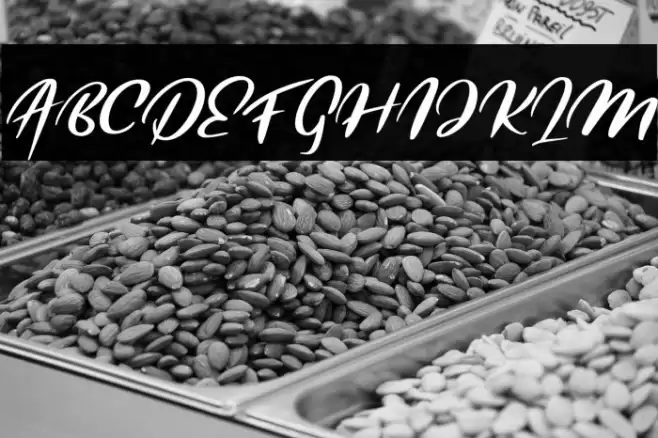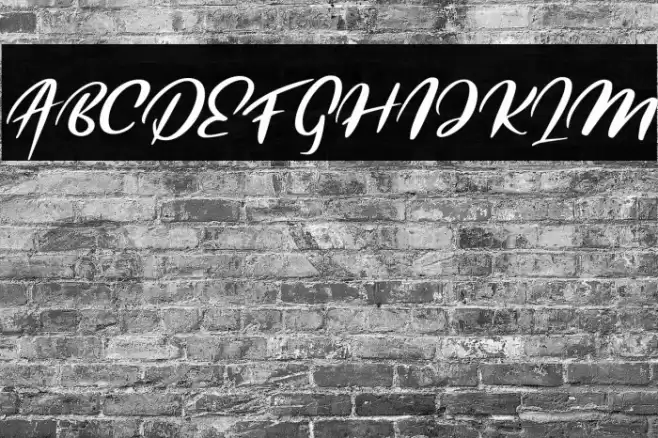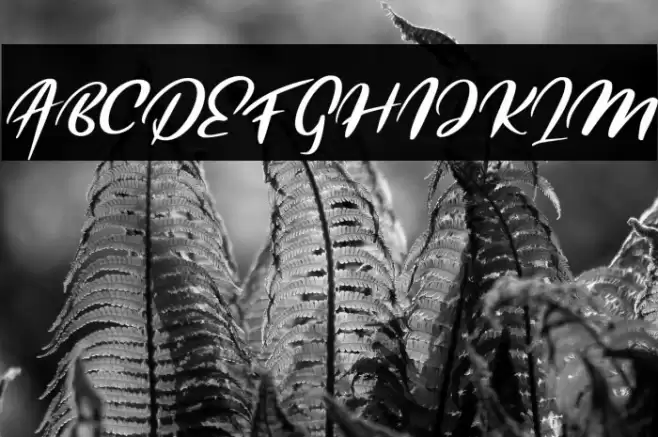
QorsFREE Font
QorsFREE Description
This font features a dynamic and flowing script style, characterized by its elegant and fluid strokes. The uppercase letters exhibit a graceful, sweeping motion with a slight slant, while the lowercase letters maintain a consistent rhythm and balance. The font's design is reminiscent of traditional calligraphy, with a modern twist that adds a touch of sophistication. The characters are well-spaced, allowing for readability while maintaining an artistic flair. This font is ideal for projects that require a personal and stylish touch, such as invitations, branding, and decorative elements.
A dynamic and elegant script font with fluid, calligraphic strokes from Uncategorized fonts.
- Proposed Projects: Ideal for wedding invitations, branding, greeting cards, and decorative designs.
- Use Case: Logos, Invitations, Decorative text